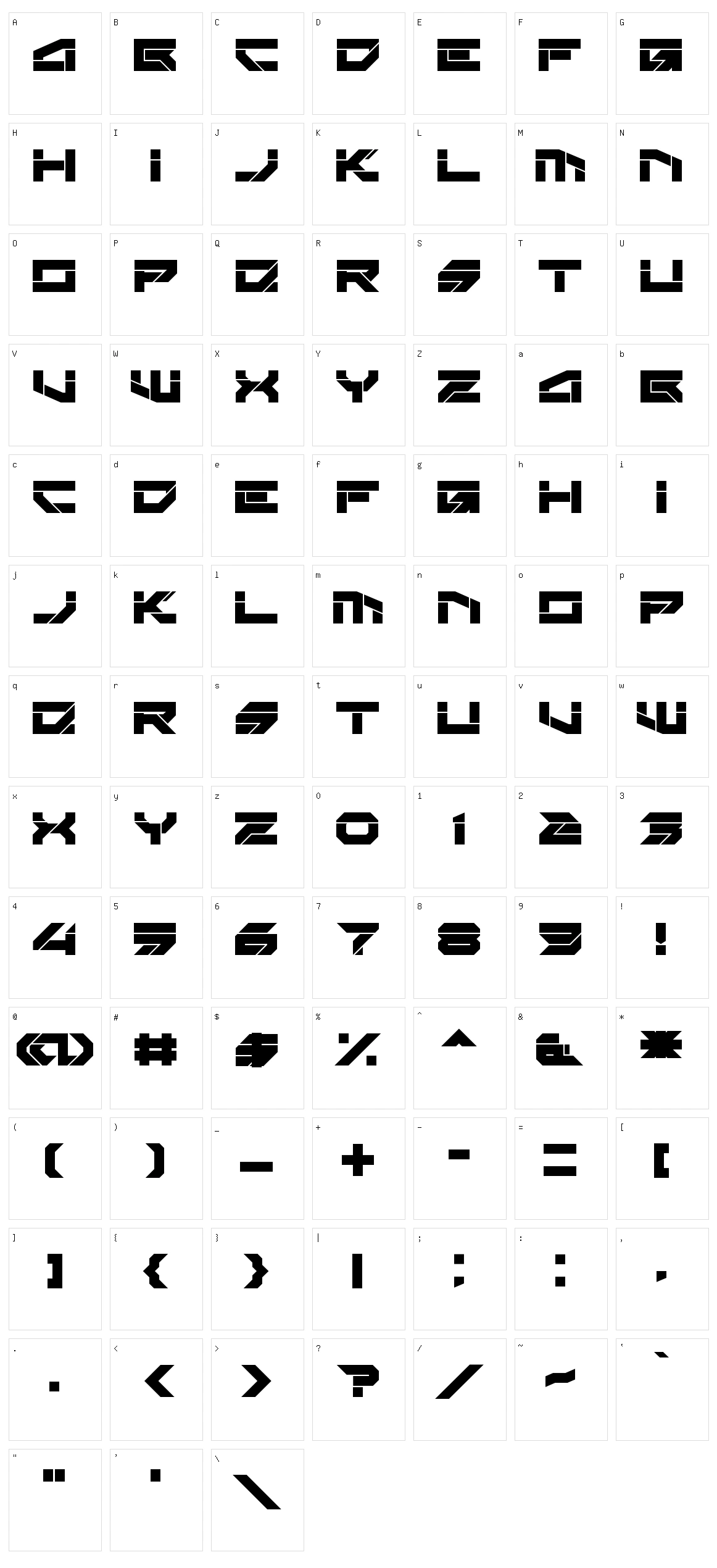
The free font Rektec is carefully designed by Axel Lymphos, showcasing a thoughtful balance of creativity and usability and falls under the Square font style. When you download the ZIP file, it contains only 206.95 KB of font files, making it lightweight and quick to download. Please review the license details below to understand permitted usage and distribution rights. If license information is not available, we recommend using this font for personal projects only or contacting the author directly for commercial usage permissions.